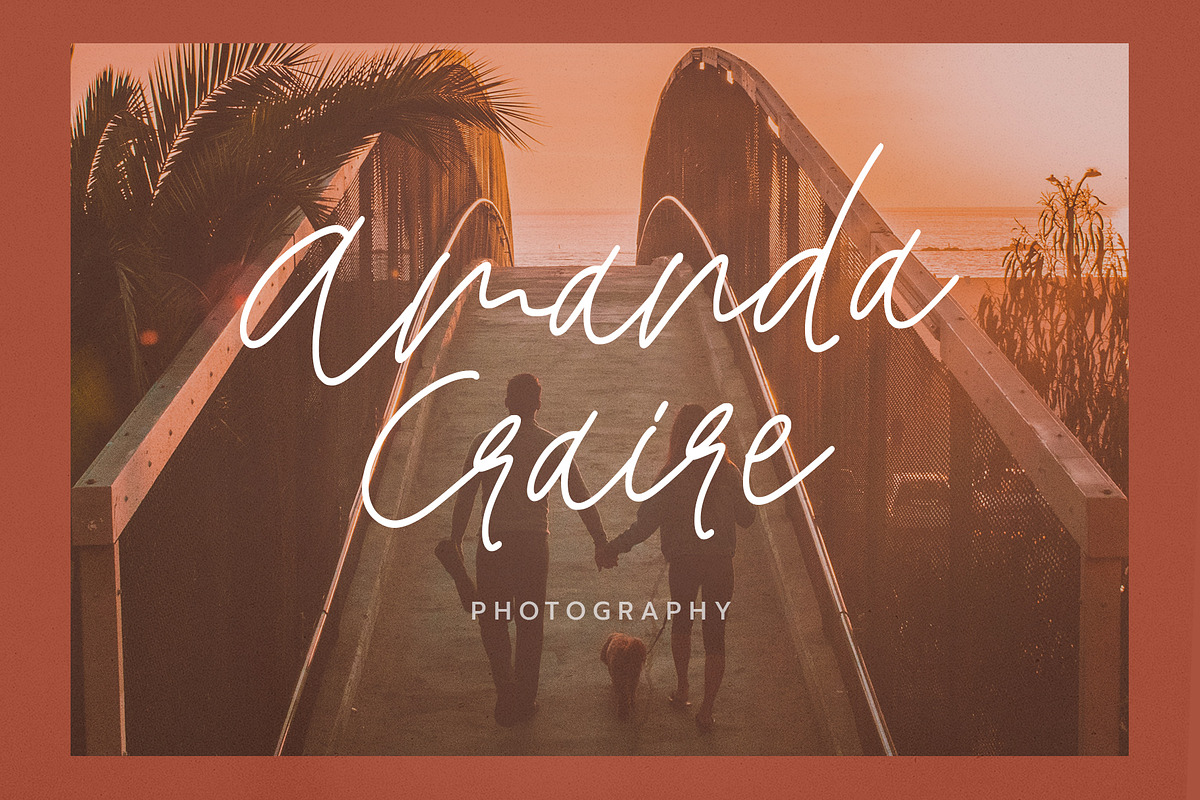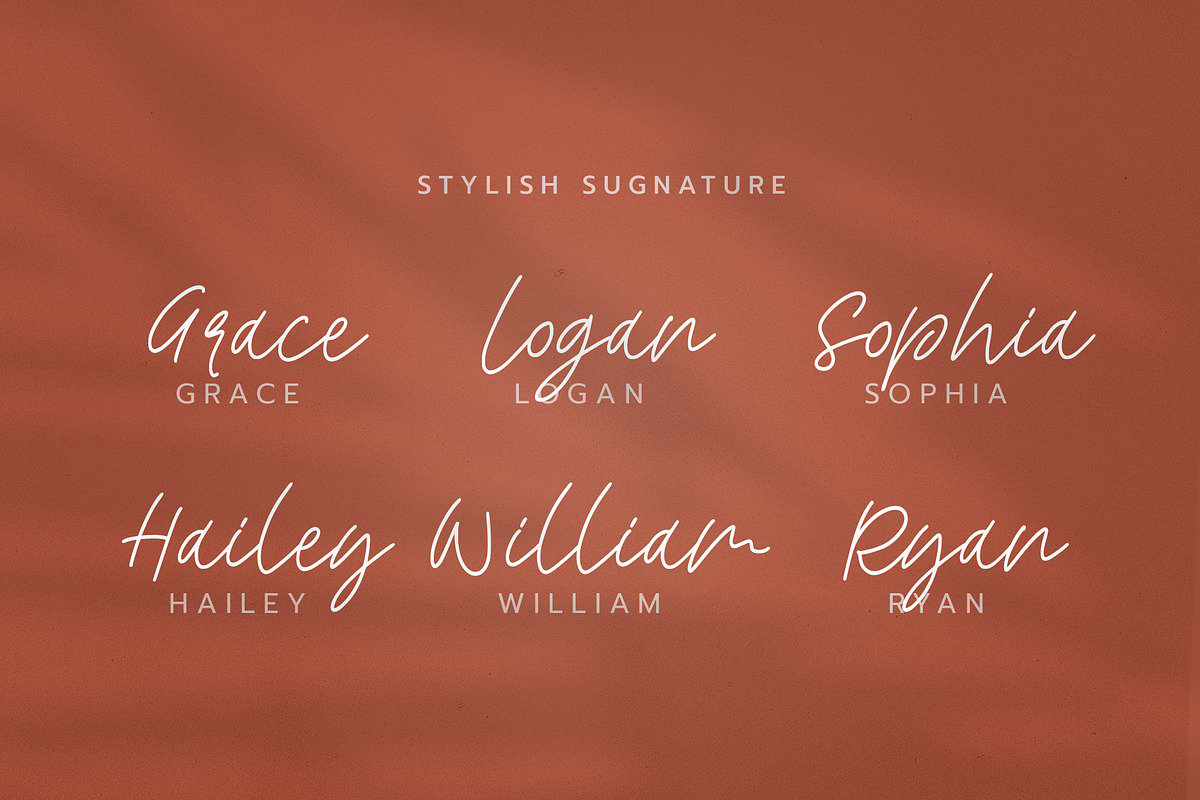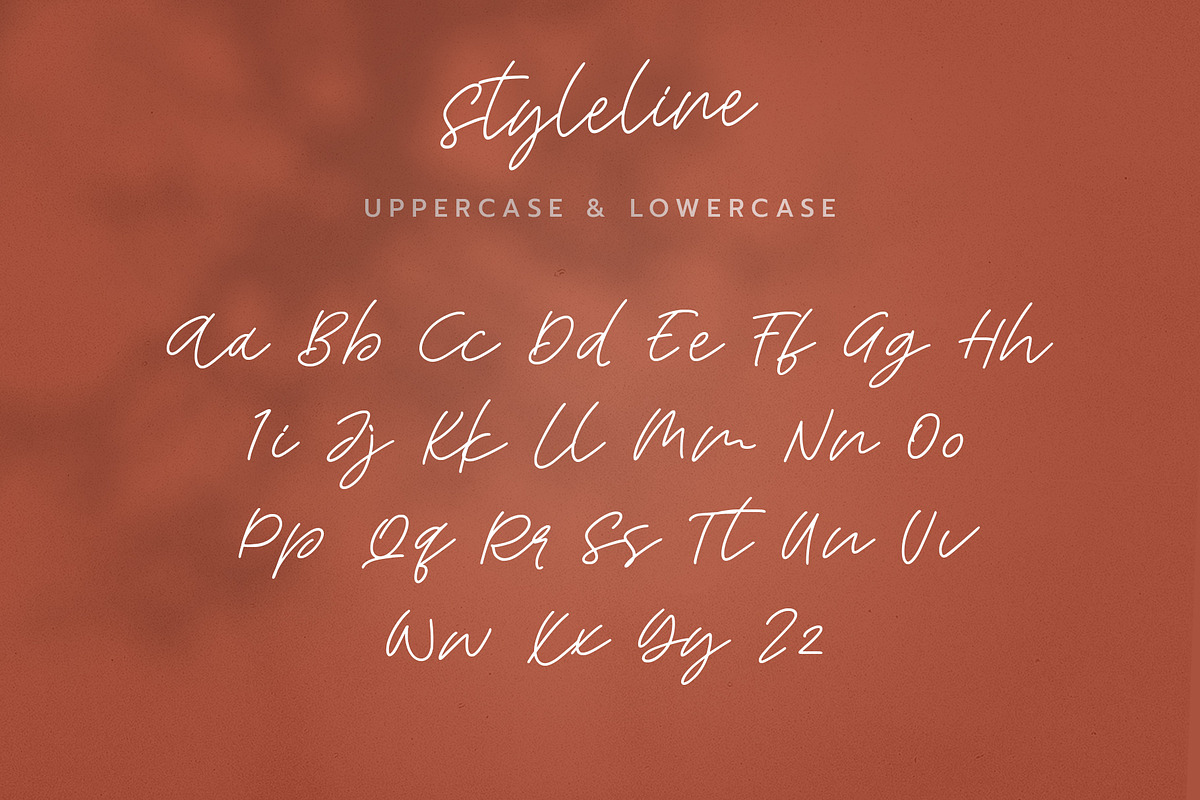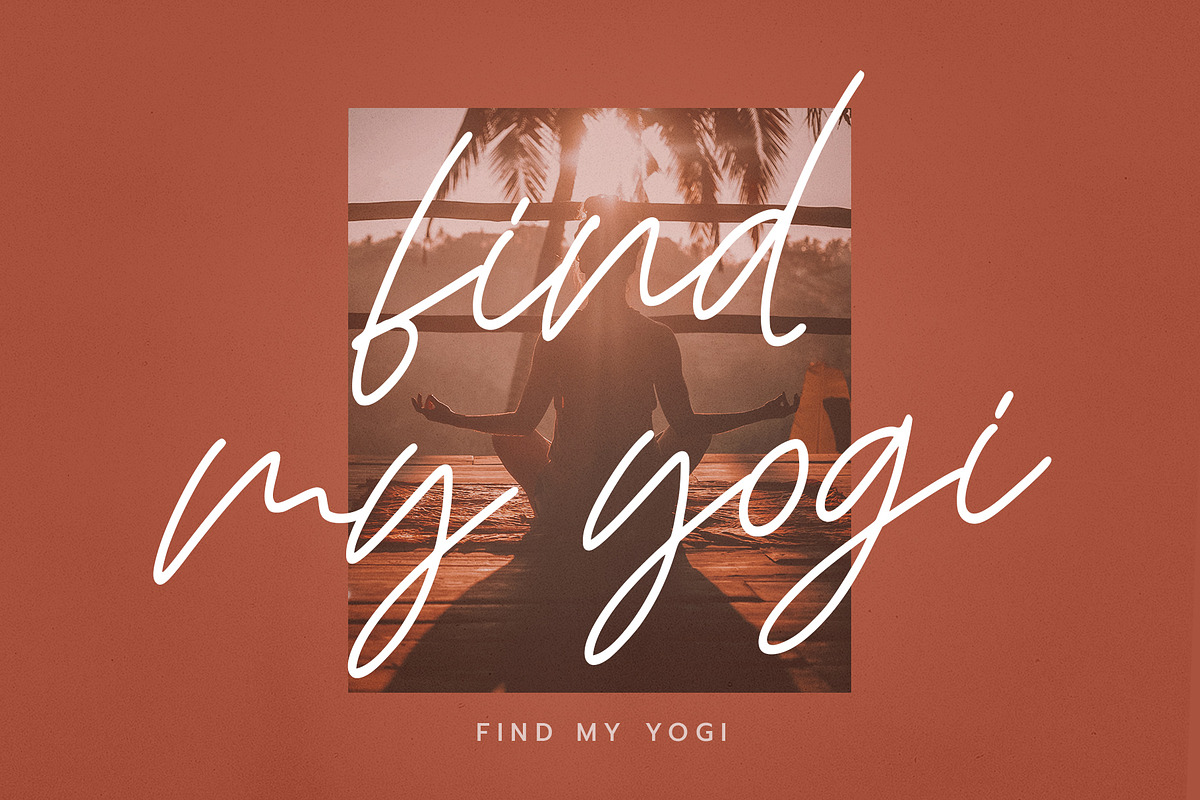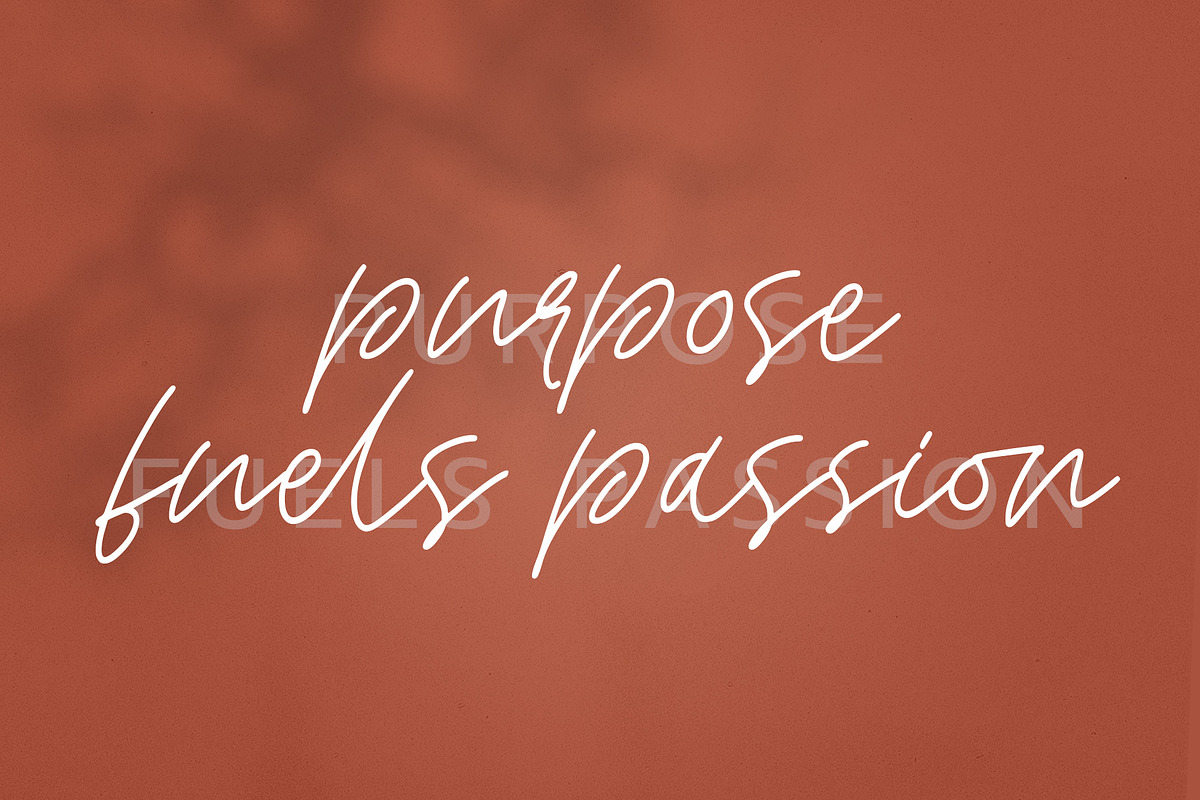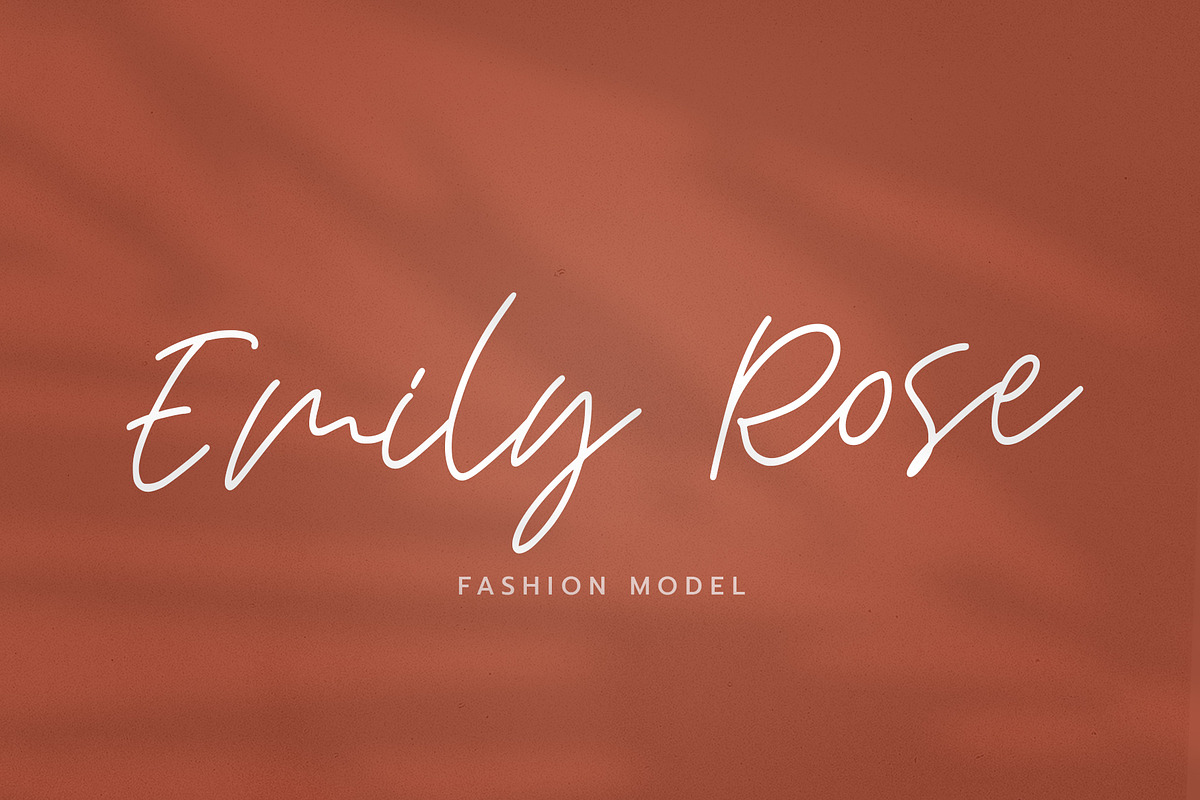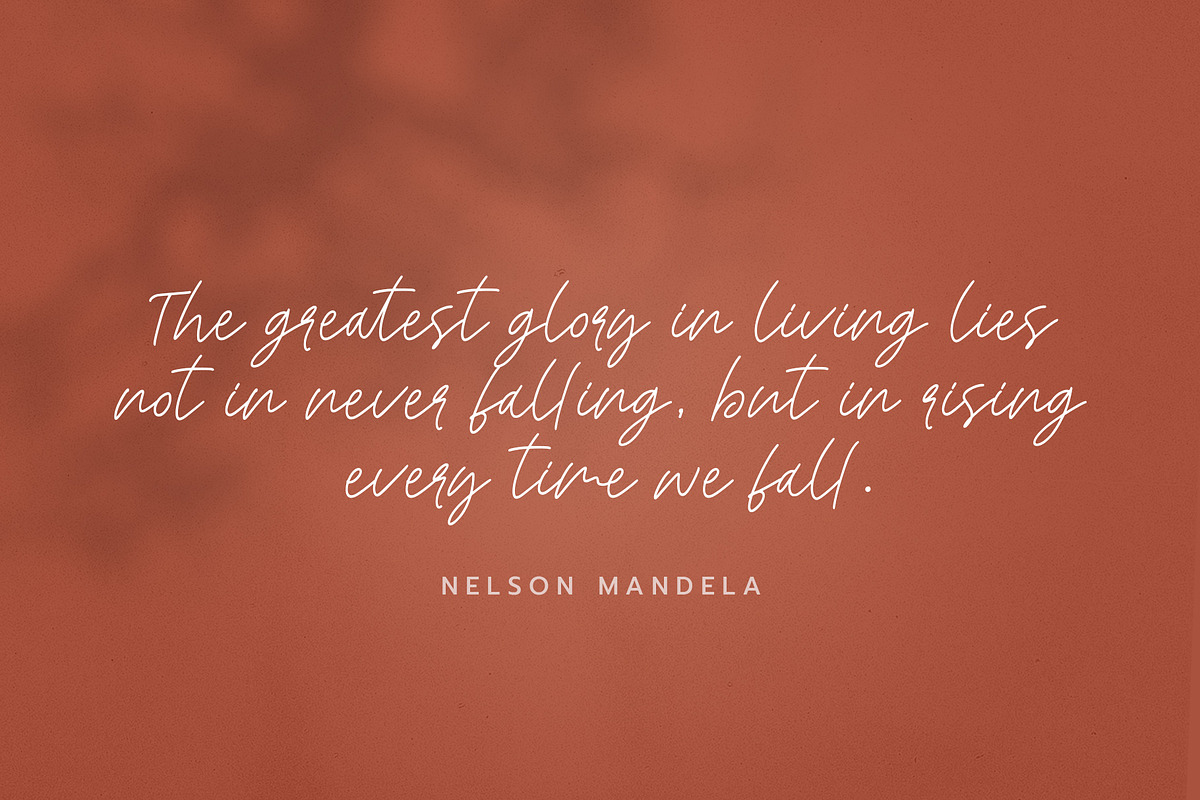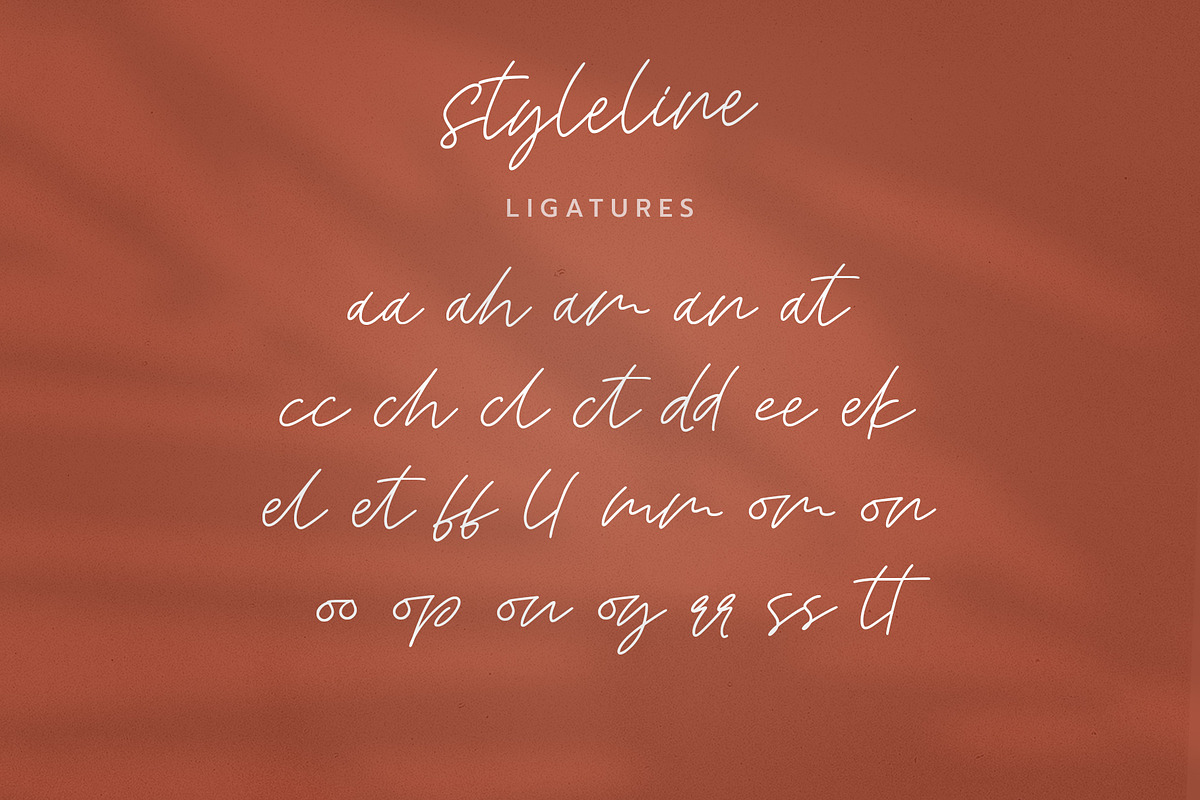
Style Line
The Monoline font StyleLine will be great for create perfect and unique design of your wedding postcard, branding, invitations, quotes, prints, typography, quotes, text, magazines and many more !
This font includes all upper and lower case standard character, punctuation, numerals and ligatures !